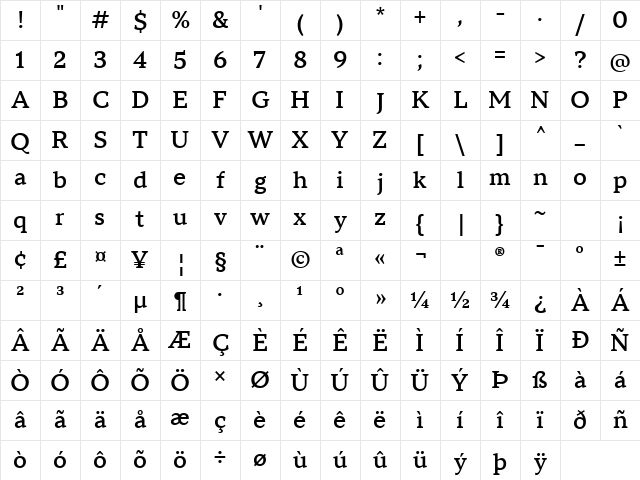
Complete TT Nrms Pr Srf Trl Vr Rmn Rg glyph index. Displaying only characters natively supported by TT Nrms Pr Srf Trl Vr Rmn Rg font.
TT Nrms Pr Srf Trl Vr Rmn is a composed and adaptable typeface that performs quietly and consistently across a wide range of design contexts.
Pro Tip: Use TT Nrms Pr Srf Trl Vr Rmn in both headline and body roles to test its range before committing to a single application.